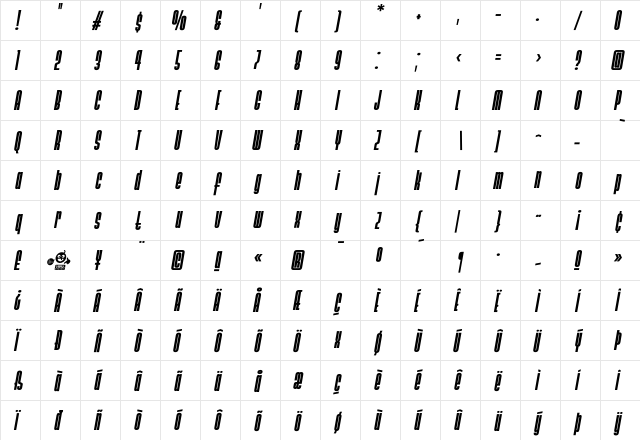
Ainsdale BoldItalic
Design Context for Ainsdale Typeface
Ainsdale takes a measured approach to typography — its balanced proportions and neutral character make it a reliable workhorse for both digital and print work. Its italic angle brings a sense of urgency and motion to the letterforms. Its bold stroke weight gives it real presence on the page.
Pro Tip: Use Ainsdale for emphasis, pull quotes, and subheadings where its slanted energy can add rhythm to the layout.